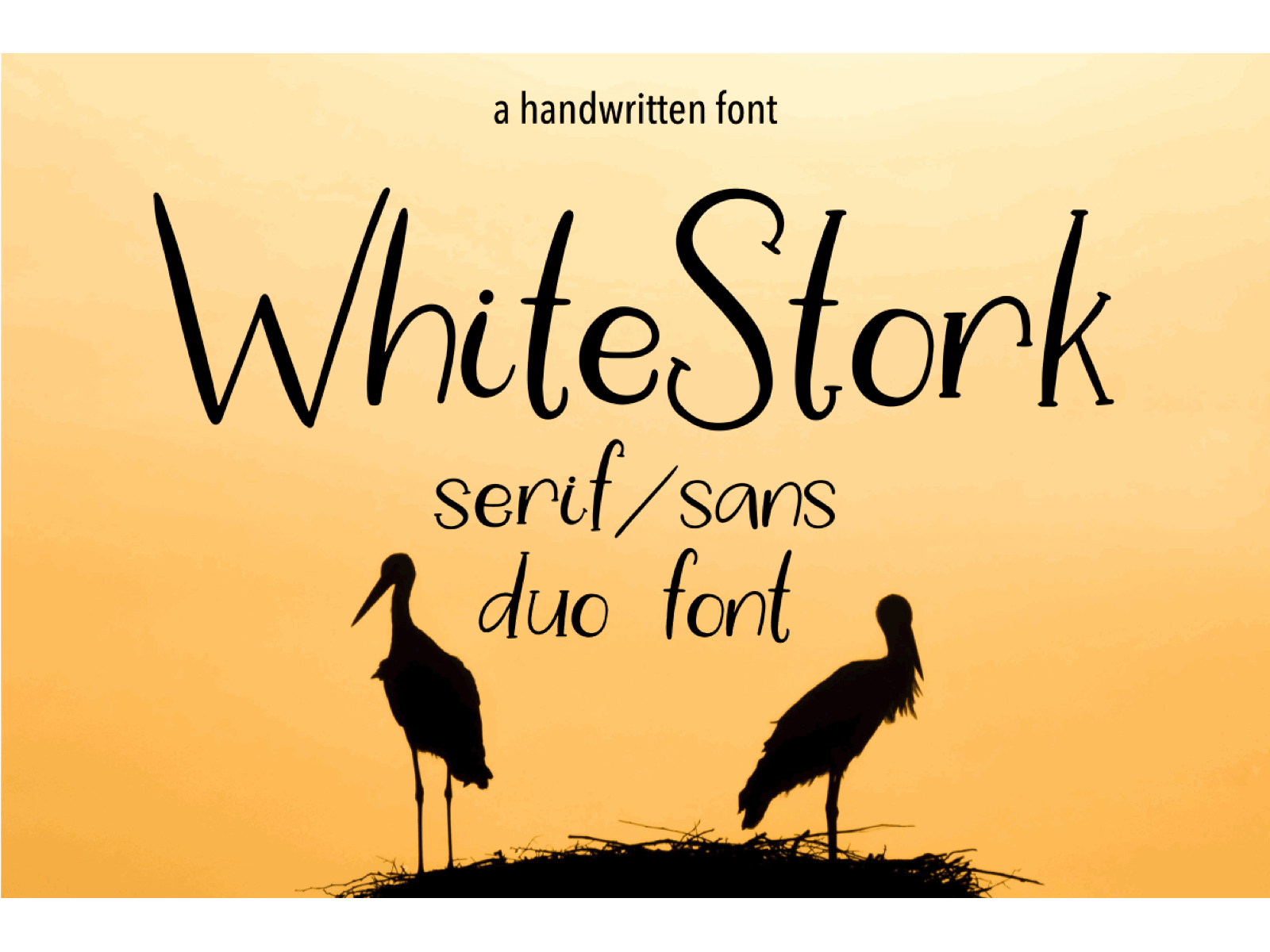
White Stork. A Handwritten Font
Let me introduce my new handwritten font White Stork. This font contains two versions Serif and Sans. So you can combine them to get a more interesting design. The font has simple shapes so it will be versatile to use. It will look great for logotypes, quotes, greeting cards, prints, branding design and more.
Hand-drawn font White Stork contains 2 sets of uppercase (serif and sans), 2 sets of lowercase (serif and sans), alternate set of lowercase letters for serif font, ligatures for double f and t letters. Multilingual support is included.
Features: Uppercase & Lowercase Serif Uppercase & Lowercase Sans Alternate set of Lowercase Serif Numerals & Punctuation Ligatures (watch preview) Multilingual support Serif and Sans